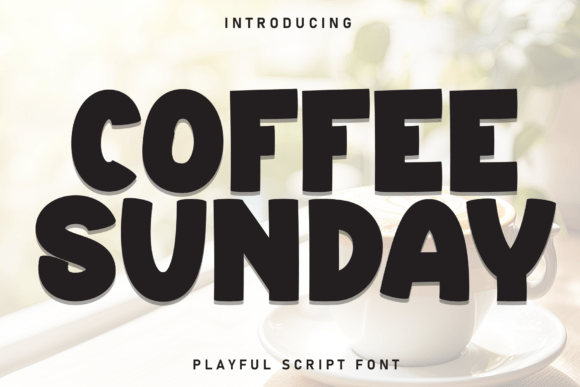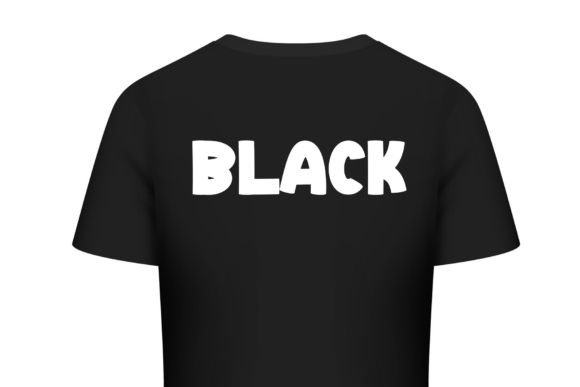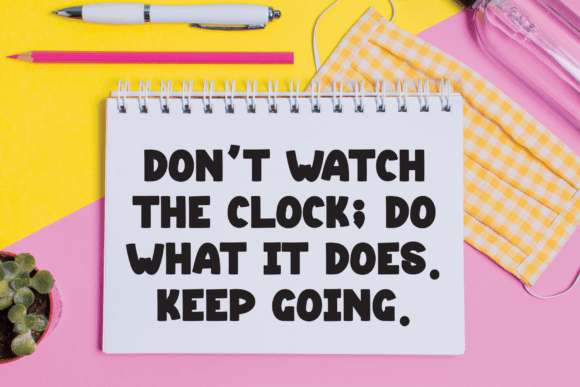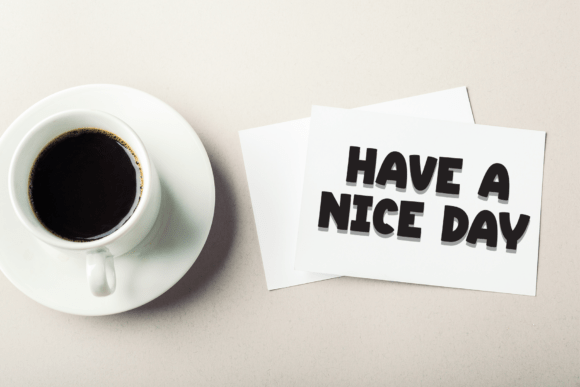
Coffee Sunday Font
About the Coffee Sunday Font
Presenting Coffee Sunday Font, a unique and stylish typeface that will make your work stand out. Coffee Sunday is a casual and neat display font that radiates a fresh, friendly vibe. With clean lines and a relaxed structure, it’s perfect for packaging, posters, and social media graphics. The approachable design adds charm and clarity to projects while maintaining a polished appearance.
Coffee Sunday excels in headlines, short taglines, and branding applications where a friendly, approachable feel is desired. Its legibility shines in larger sizes, making it ideal for posters, signage, and social media posts. However, its casual nature makes it less suitable for body text or UI elements requiring high readability at smaller sizes. Long paragraphs would be difficult to read using this font.
Consider pairing Coffee Sunday with a clean sans-serif like Lato or Open Sans for a balanced contrast; the sans-serif provides readability for supporting text while Coffee Sunday retains visual prominence. Alternatively, a delicate script font could add a touch of elegance, creating a sophisticated yet approachable feel, depending on the project’s specific aesthetic.
The overall personality of Coffee Sunday is cheerful and approachable, making it a great fit for brands focused on coffee shops, bakeries, lifestyle products, or anything aiming for a welcoming, friendly aesthetic. Avoid using it for projects requiring a formal or serious tone.
Coffee Sunday Font Usage Examples
Coffee Sunday Font Example